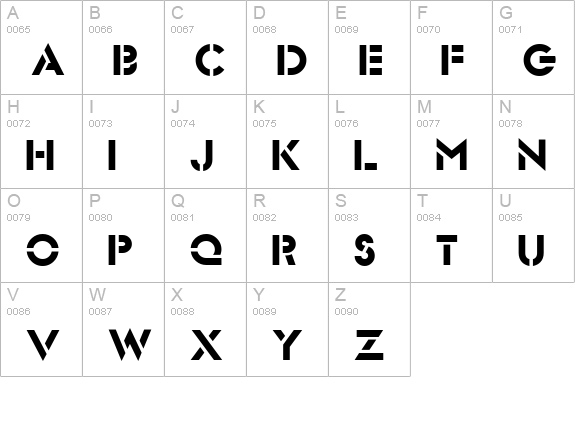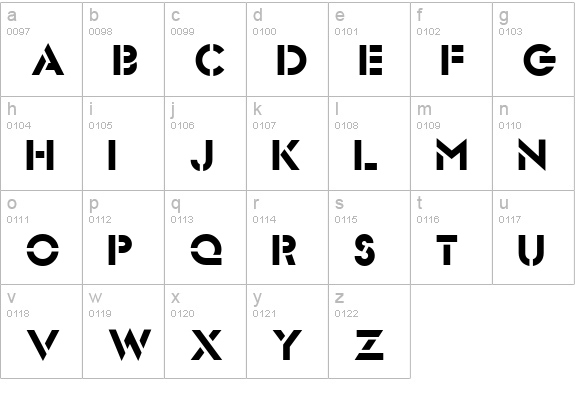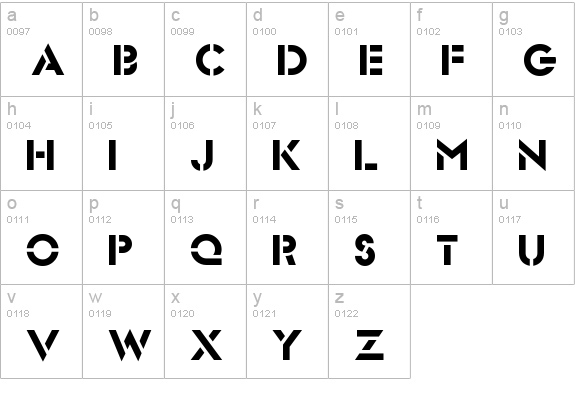
Futura Stencil ICG is a modern and stylish font that combines the classic Futura typeface with a stencil design. This unique fusion creates a visually striking and versatile font that is perfect for a wide range of design projects. The clean lines and geometric shapes of Futura Stencil ICG make it ideal for creating bold headlines, striking logos, and eye-catching posters. What sets Futura Stencil ICG apart is that it is available for free download at FontsMarket.com. This means that you can easily access and use this high-quality font in your projects without any cost. Whether you are a professional designer or a hobbyist looking to add a touch of sophistication to your creations, Futura Stencil ICG is a fantastic choice. Don't miss out on the opportunity to enhance your designs with this elegant and modern font.